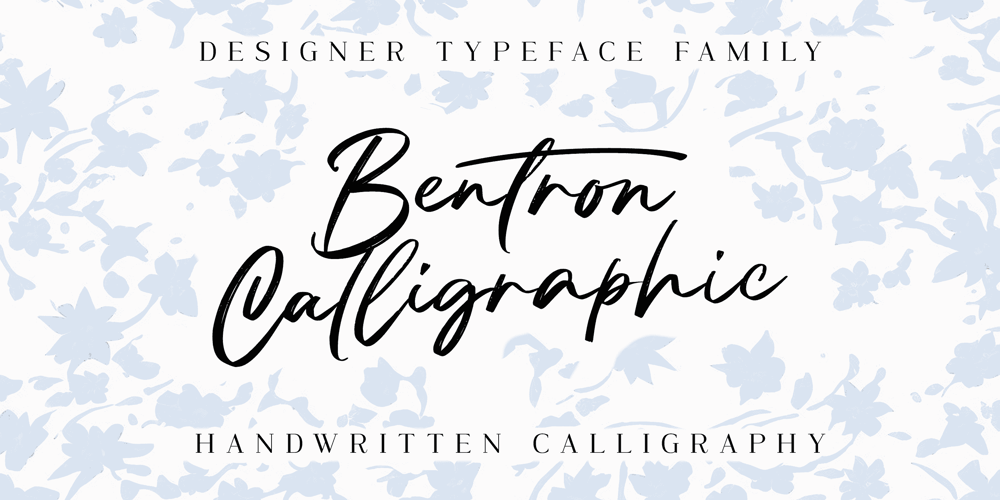
Bentron Calligraphic
Bentron Calligraphic font
Bentron Calligraphic Font Family was designed by Måns Grebäck and published by Mans Greback. Bentron Calligraphic contains 4 styles and family package options. Bentron Calligraphic is a bold and beautiful brush font with a touch of speed and sophistication. Its rapid strokes and dynamic flow give it a signature-like quality that is perfect for adding a personal touch to your projects.Designed with a focus on the art of calligraphy, Bentron Calligraphic exudes elegance and grace with its smooth curves and flowing lines. This font is perfect for anything from logos and branding to social media posts and invitations.Bentron Calligraphic comes in four styles: Regular, Italic, Alternate Regular and Alternate Italic. This range of styles provides versatility and allows for dynamic and creative designs.Use underscore _ to create a swash anywhere in a word. Example: Space_jamsUse multiple underscores to create different swashes. Example: Signa____turesThe font is built with advanced OpenType functionality and has a guaranteed top-notch quality, containing stylistic and contextual alternates, ligatures and more features; all to give you full control and customizability. It has extensive lingual support, covering all Latin-based languages, from Northern Europe to South Africa, from America to South-East Asia. It contains all characters and symbols you’ll ever need, including all punctuation and numbers.